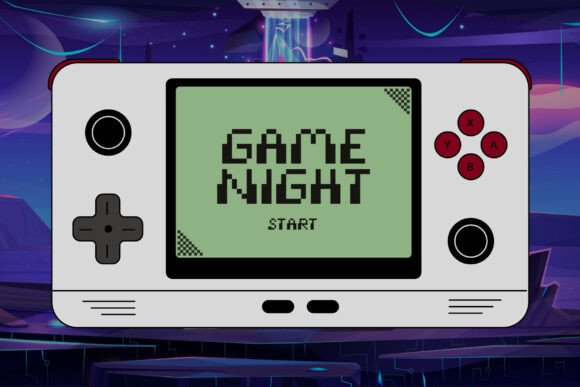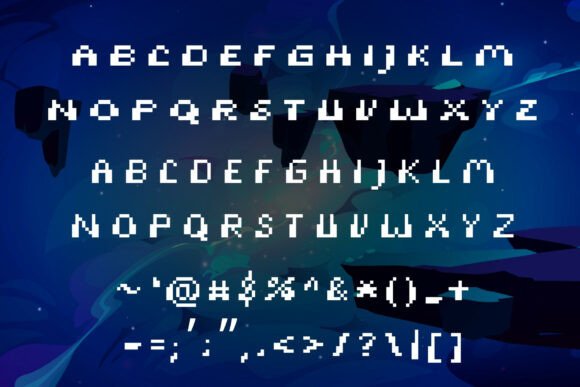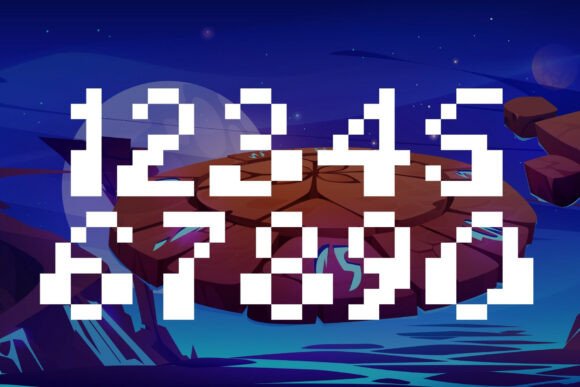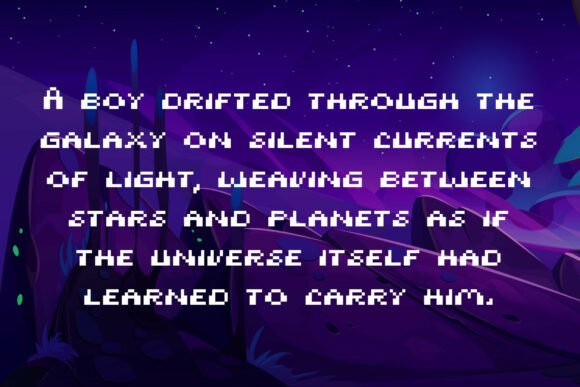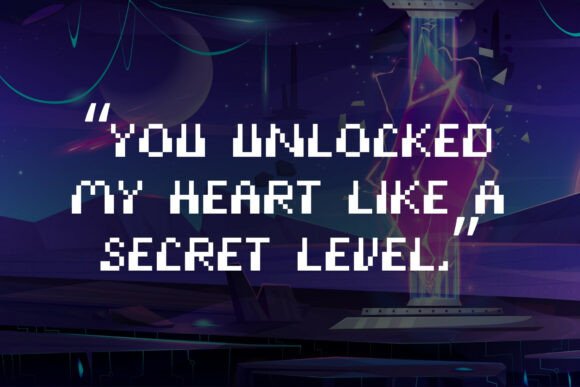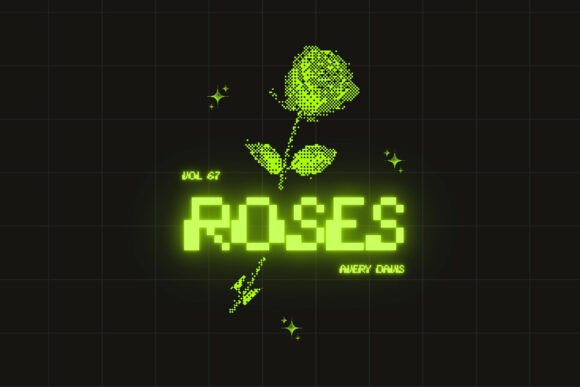
Introducing Glyph Galaxy Font: The Ultimate Retro-Inspired 8-Bit Pixel Font
Are you a designer, gamer, or crafty enthusiast looking to add a touch of nostalgia to your creative projects? Look no further than Glyph Galaxy Font, a retro-inspired 8-bit pixel font that captures the magic of classic video games and digital nostalgia. This typeface is designed to bring the charm of old-school arcade screens into modern creative projects, and we’re excited to dive into its features and uses.
A Blast from the Past: The Design of Glyph Galaxy Font
Glyph Galaxy Font is built on a structured pixel grid, delivering a clean yet nostalgic aesthetic that feels straight out of vintage gaming consoles. Its crisp square forms and authentic pixel precision make it a perfect fit for designers and crafters who want to evoke the look and feel of classic video games. Every character is carefully crafted to ensure readability while maintaining that iconic low-resolution look that defined an era.
Perfect for a Variety of Creative Projects
Glyph Galaxy Font is incredibly versatile and can be used in a wide range of creative projects, including:
- Video game design: Add a retro touch to your game’s UI, titles, and dialogue with Glyph Galaxy Font.
- Posters: Create eye-catching posters that evoke the nostalgia of classic arcade games.
- UI interfaces: Use Glyph Galaxy Font to give your app or website a retro-inspired look.
- Branding: Add a playful, digital edge to your brand’s identity with this unique font.
- YouTube thumbnails: Stand out on YouTube with bold, retro-inspired thumbnails.
- Social media graphics: Create engaging social media graphics that are sure to grab attention.
- Creative projects: From pixel art to DIY crafts, Glyph Galaxy Font is the perfect addition to any creative project.
Instant Throwback Vibes
Glyph Galaxy Font delivers instant throwback vibes, transporting you and your audience back to the good old days of 8-bit gaming. Whether you’re building a retro game, designing pixel art visuals, or creating nostalgic branding, this font is sure to evoke a sense of nostalgia and playfulness. Its bold, fun, and unmistakably retro design makes it the perfect choice for designers and crafters who want to add a touch of digital edge to their work.
Key Features of Glyph Galaxy Font
- Retro-inspired 8-bit pixel font
- Crisp square forms and authentic pixel precision
- Structured pixel grid design
- Balanced design ensures readability
- Iconic low-resolution look
- Perfect for video game design, posters, UI interfaces, branding, and more
Get Creative with Glyph Galaxy Font
In conclusion, Glyph Galaxy Font is a retro-inspired 8-bit pixel font that captures the magic of classic video games and digital nostalgia. Its unique design, versatility, and instant throwback vibes make it the perfect choice for designers and crafters who want to add a touch of nostalgia and playfulness to their creative projects. Whether you’re building a retro game, designing pixel art visuals, or creating nostalgic branding, Glyph Galaxy Font is your gateway to pixel-perfect creativity.